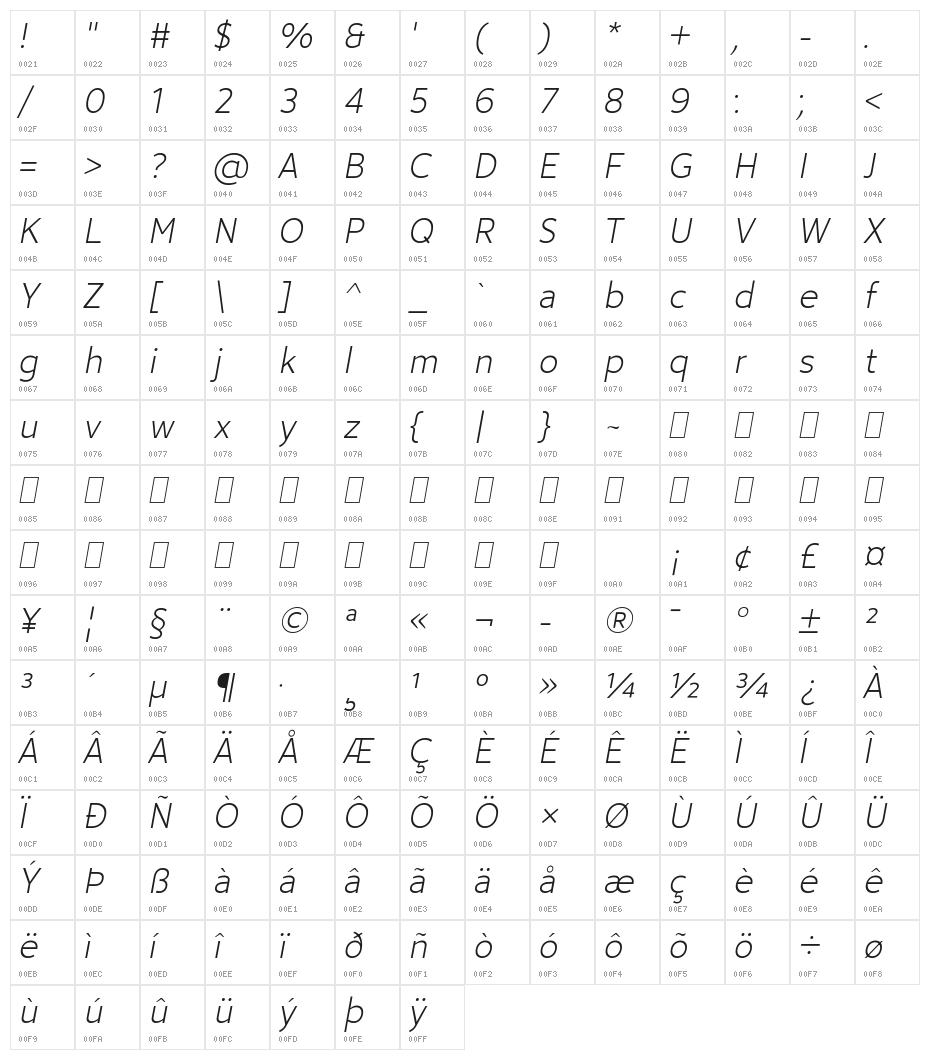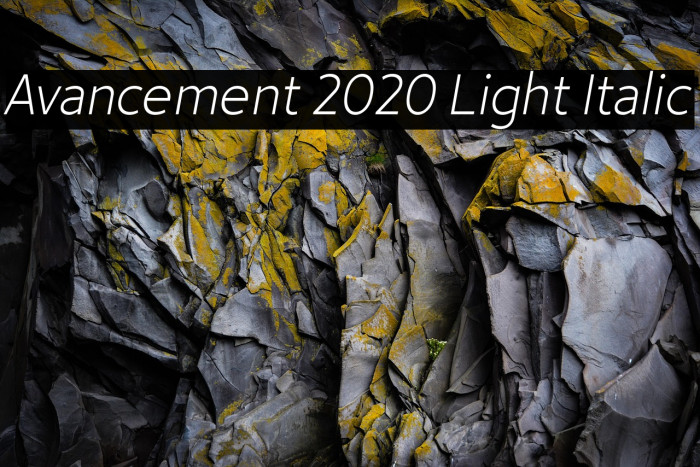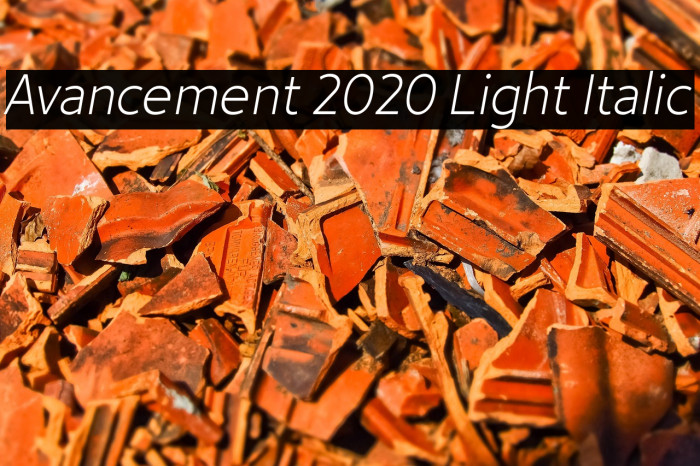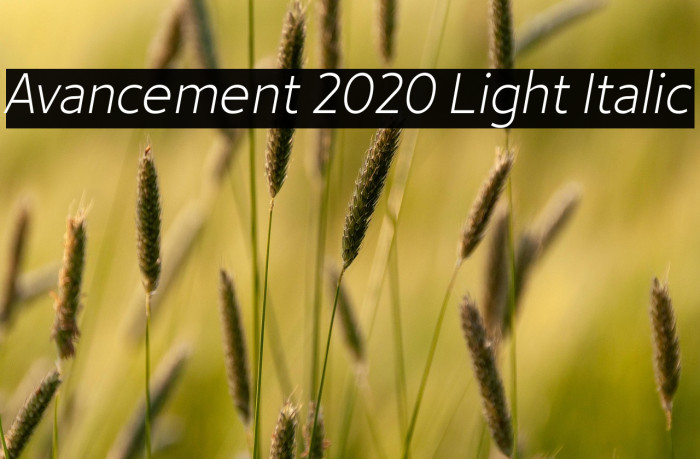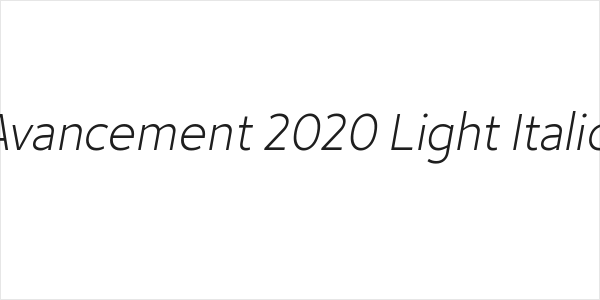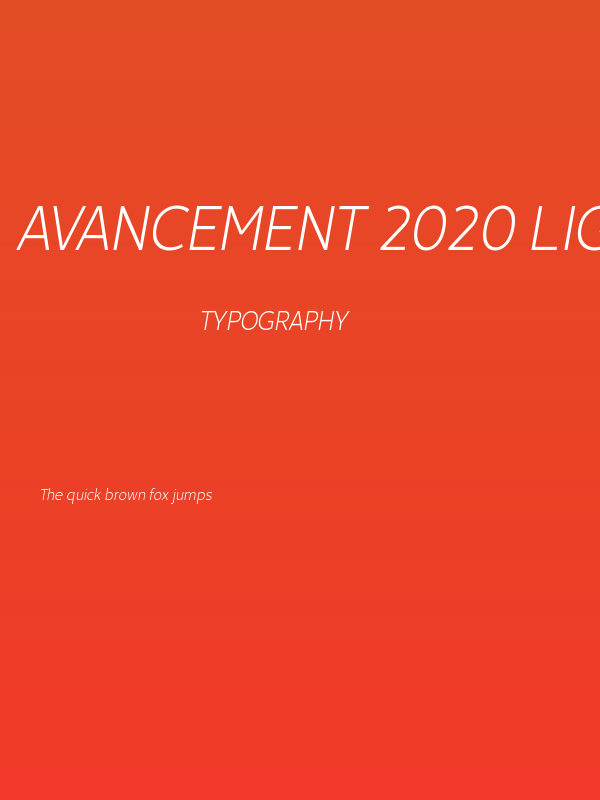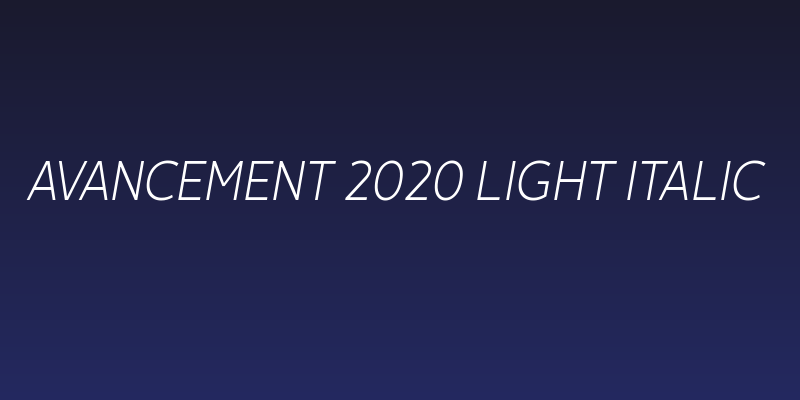
Avancement 2020 Light Italic Font
Avancement 2020 Light Italic Description
This font features a sleek and modern design with a light weight and italic style. The characters are elegantly slanted, providing a sense of motion and fluidity. The sans-serif design ensures a clean and uncluttered appearance, making it highly legible. The strokes are consistent and smooth, with a low contrast between thick and thin lines, contributing to its minimalist aesthetic. The character spacing is normal, allowing for easy readability while maintaining a stylish look. This font is versatile and can be used in various design contexts where a contemporary and sophisticated touch is desired.
| Proposed Projects | Ideal for modern branding, editorial design, digital interfaces, and minimalist posters. |